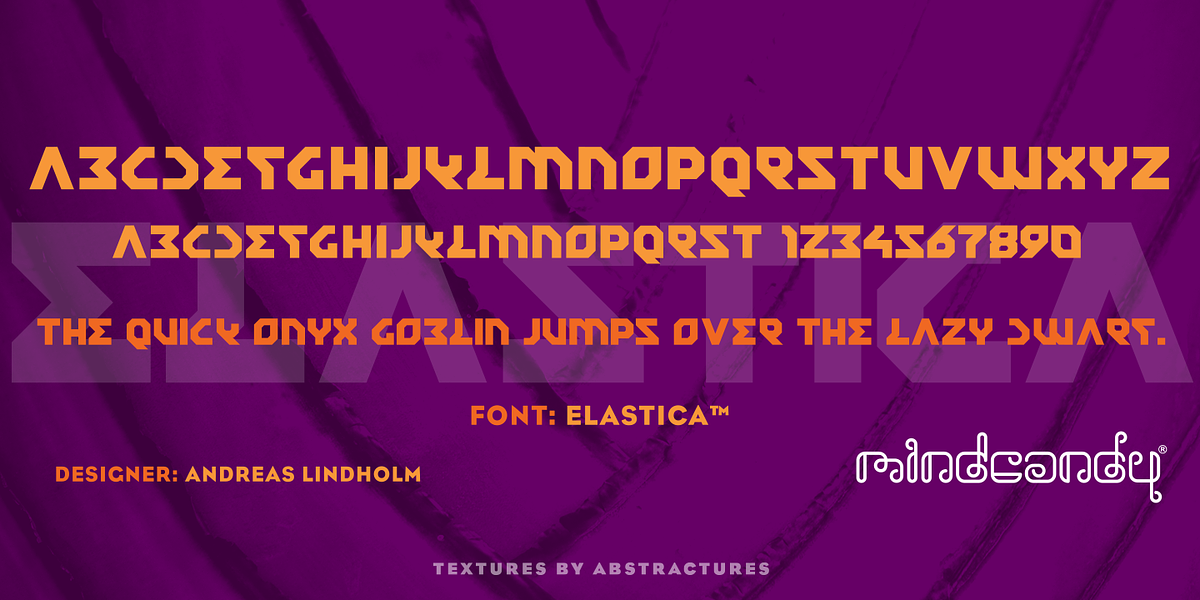
Elastica™
This retro display font features a distinctive octagonal shape and a bold, geometric sans serif design. Its all-caps format lends itself well to headlines, branding elements, and logos, evoking a sense of futuristic technology with its techno and sci-fi influences.